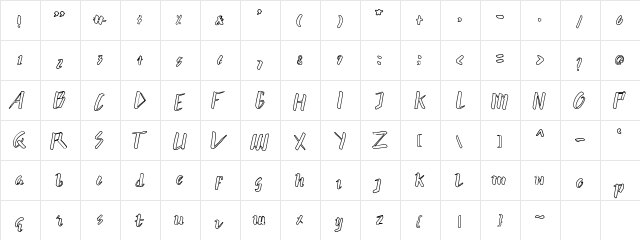
hummer outline outline
| Style | outline |
Design Context for hummer outline Typeface
hummer outline is built around its visual character rather than neutral utility — its distinctive forms are designed to make an impression at display sizes.
Font Pairing: Pair with a clean neutral sans-serif for body copy to let hummer outline's character lead without overwhelming the composition.
Pro Tip: Use hummer outline exclusively at display sizes — it was designed to be seen, not read at length. Let a neutral companion handle body copy.